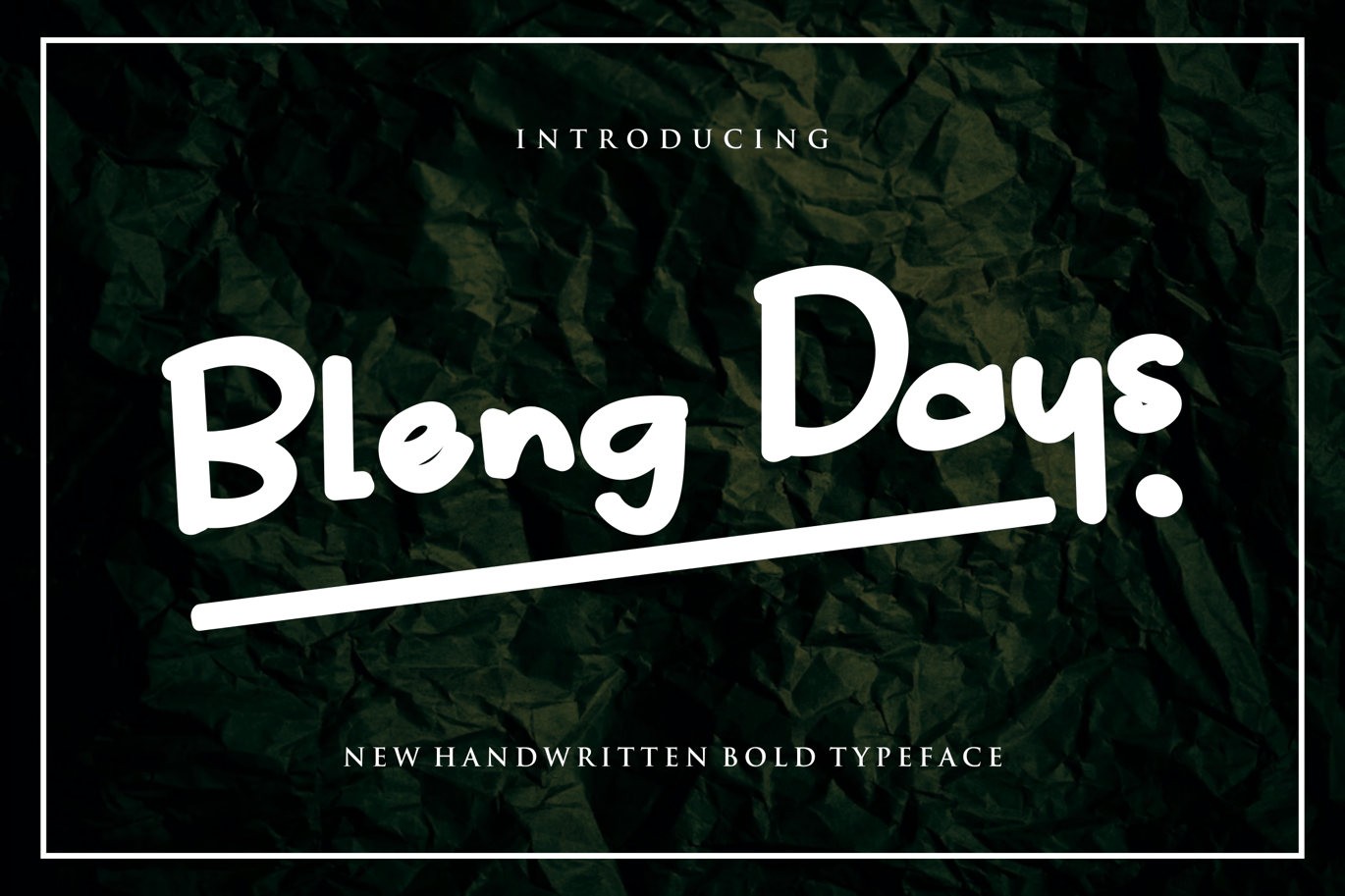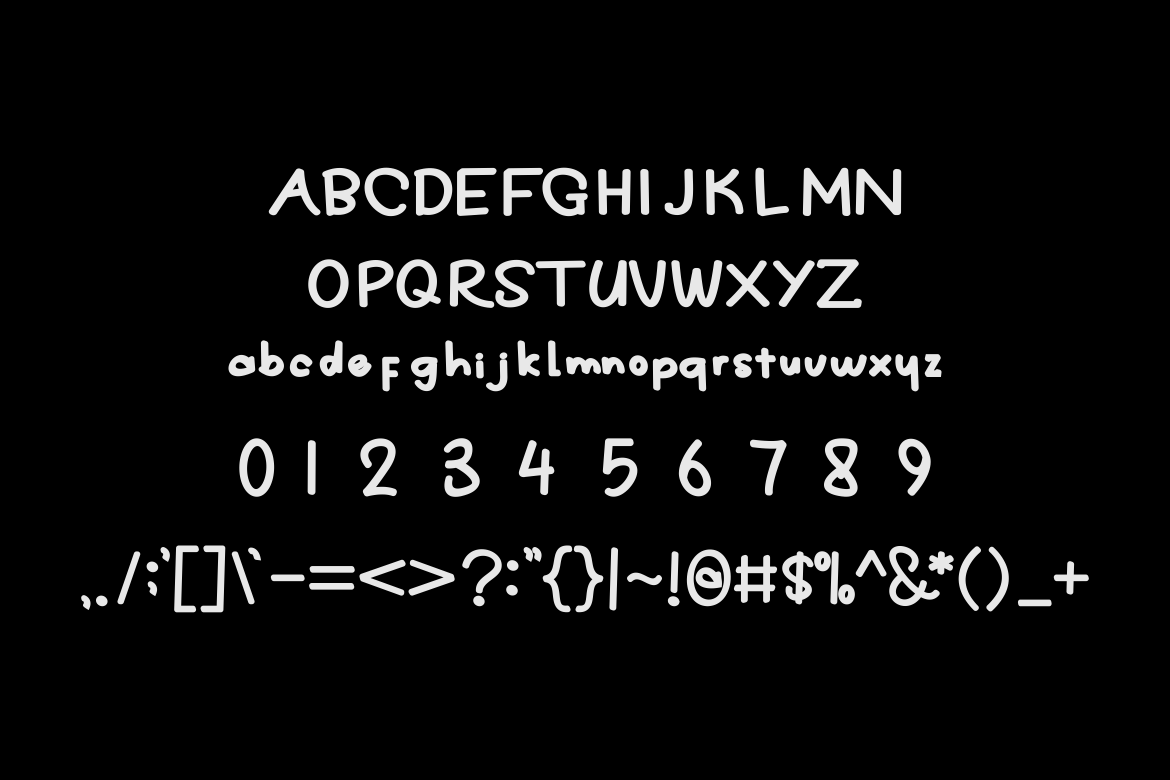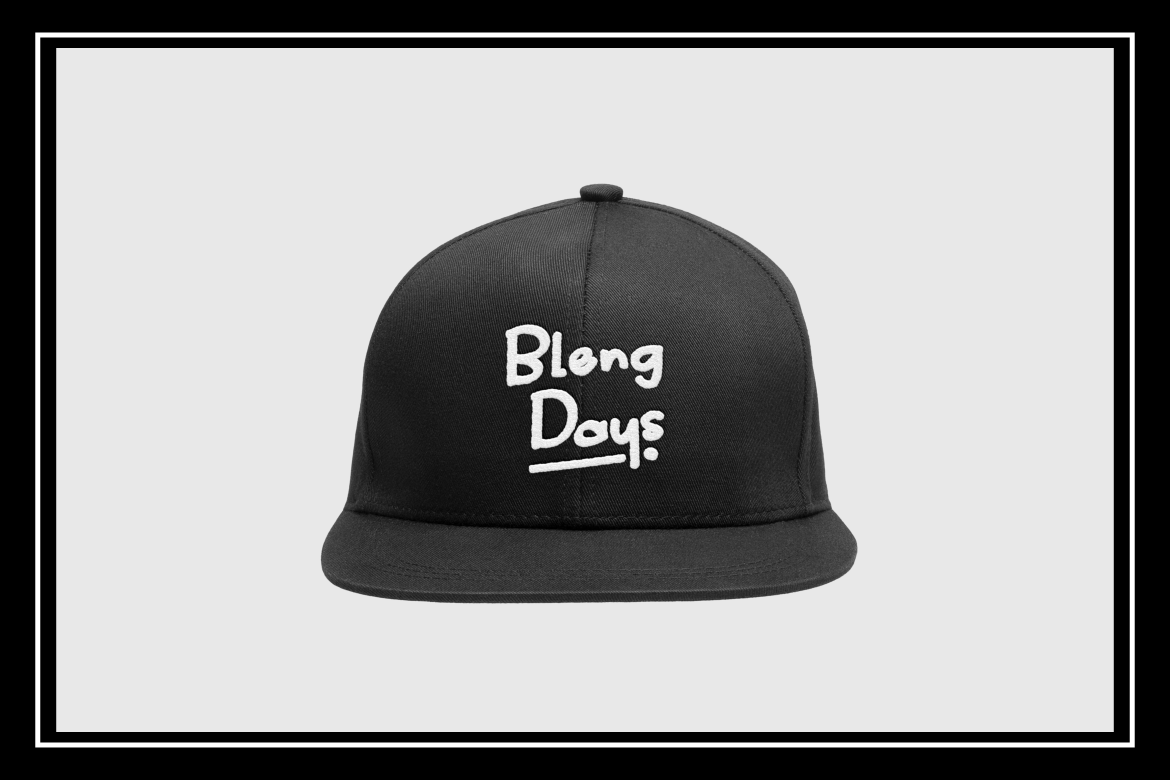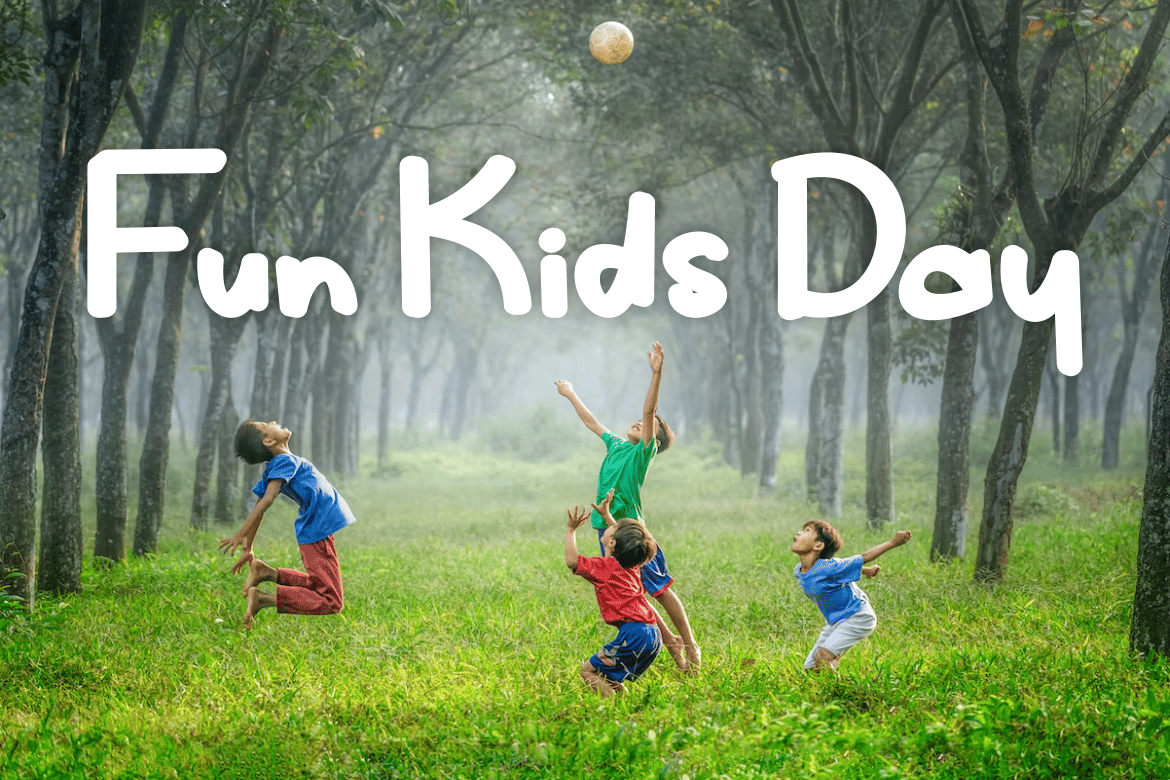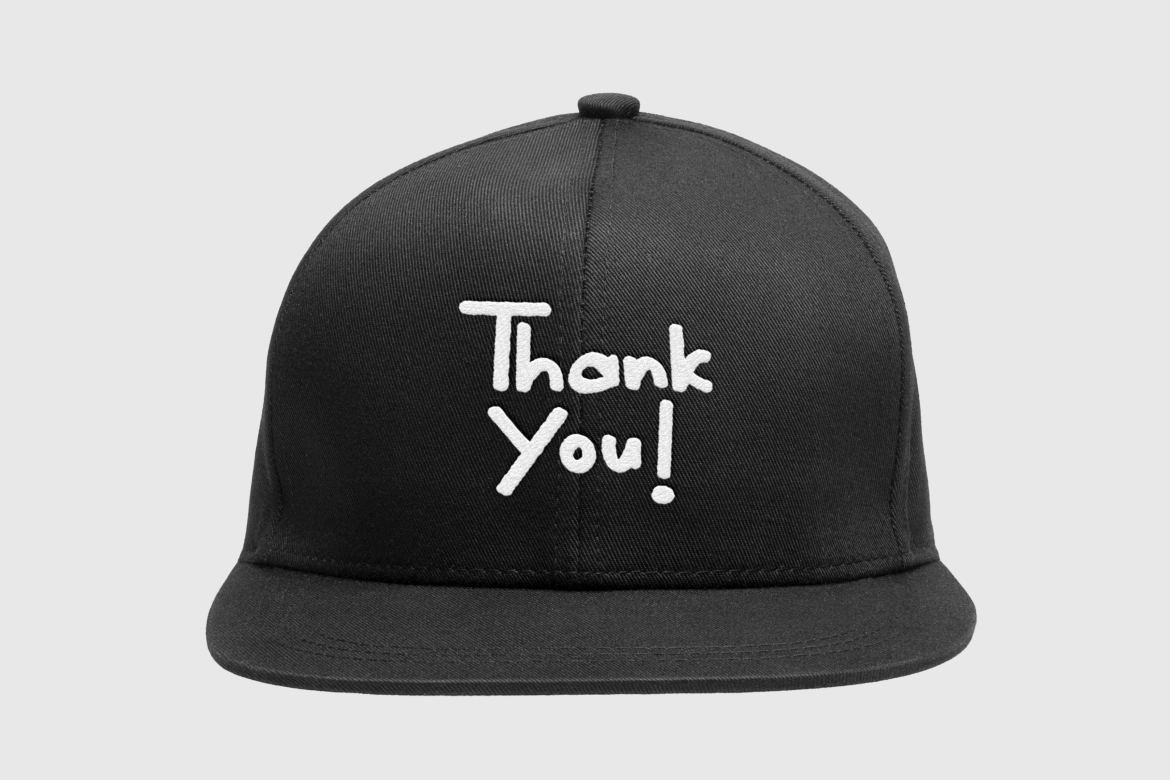
Bleng Days Fonts
Introducing our new product Bleng Days Fonts Modern Font
Bleng Days Fonts Modern Font is a bold and authentic display font. The font is suitable for any branding project like logo, t-shirt printing, esport, and many more. outstanding in a wide range of contexts.